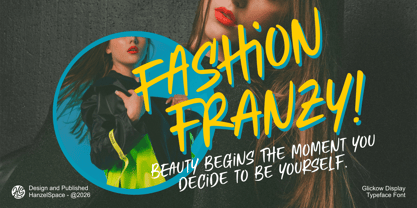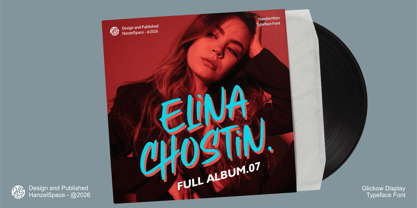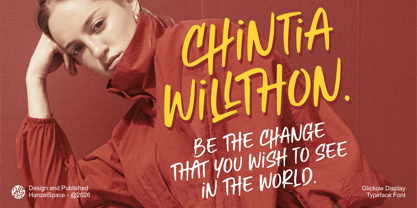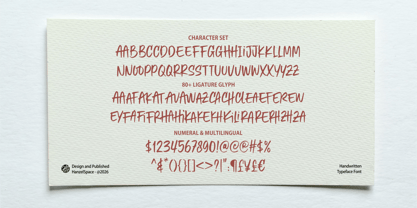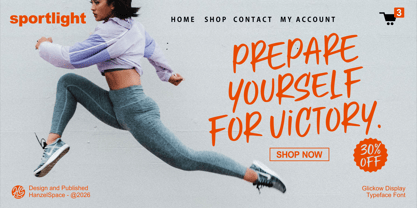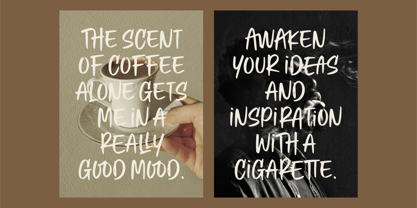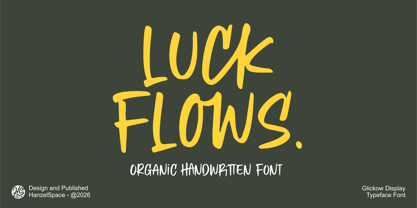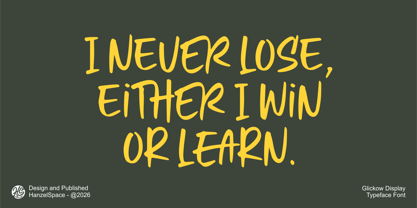
Luck Flows
by Hanzel Space
The Luck Flows Font Family was designed by Hanief Farandi and published by Hanzel Space. Luck Flows contains 1 styles. More about this family
Introducing our font "Lock Flows" creating an organic font that reflects the charm of authentic handwriting, a fast hand-drawn font that is still easy to read. This font is very suitable for your design project needs, namely logos, branding, packaging, quotes and others.
Designers: Hanief Farandi
Foundry: Hanzel Space